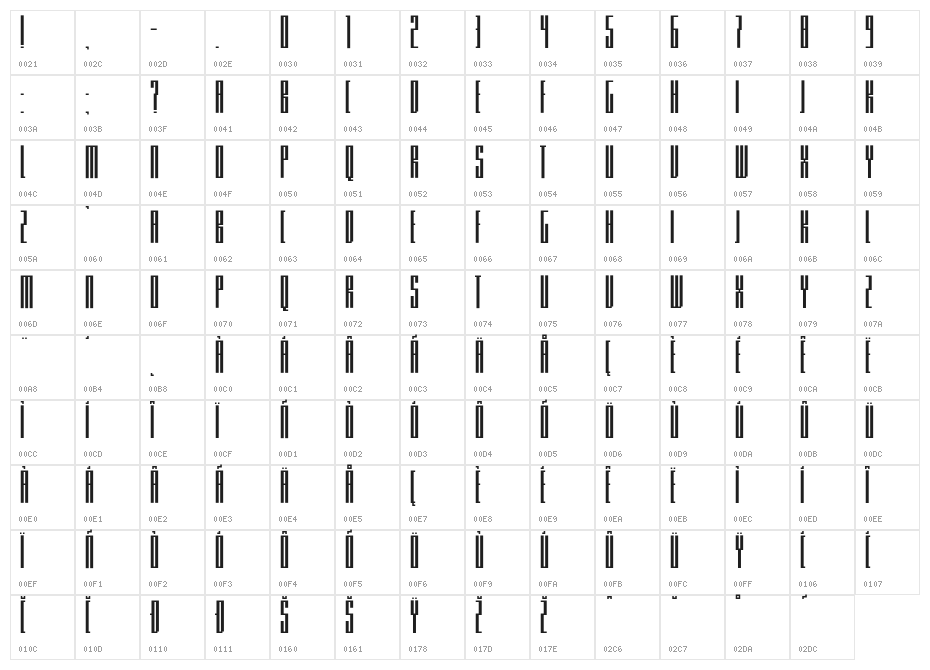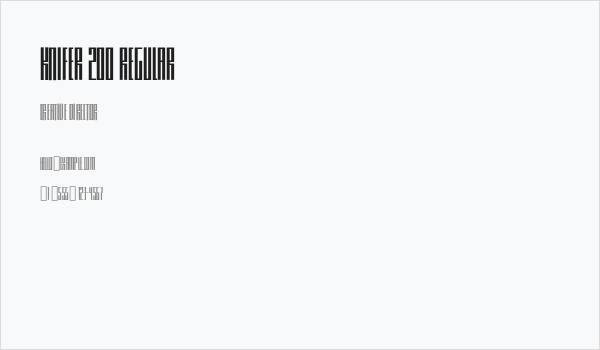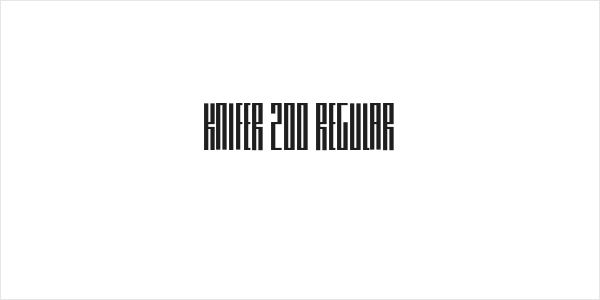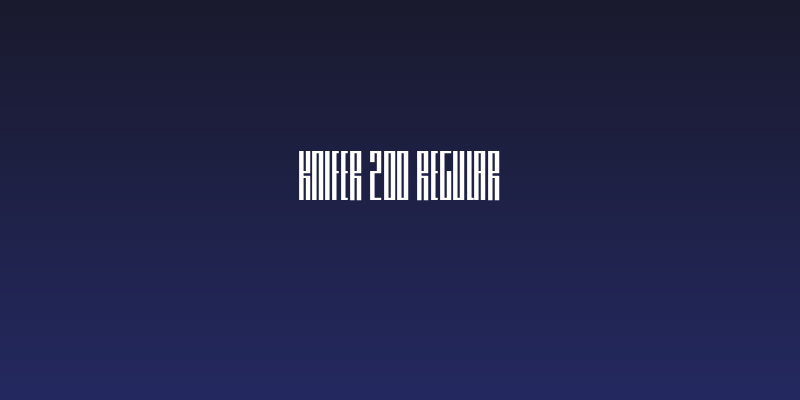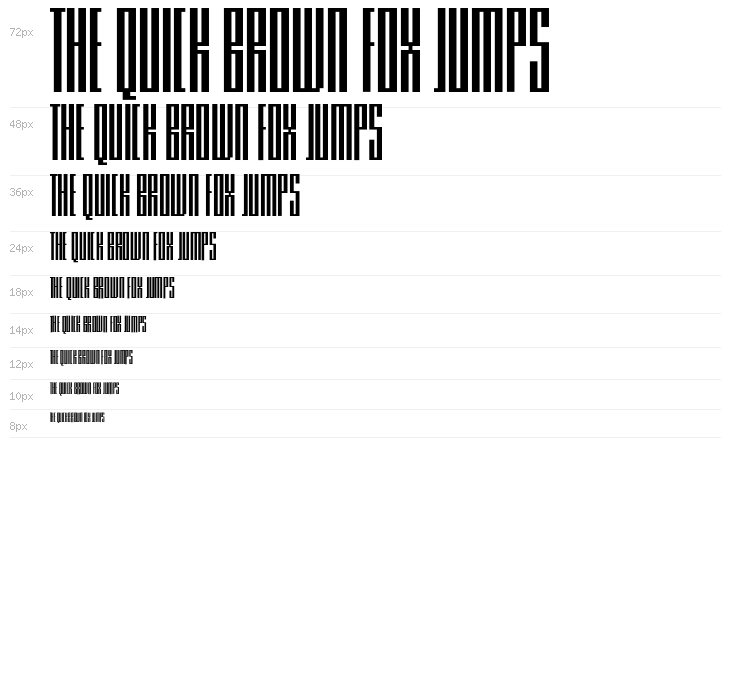
Knifer 200 Regular Font
Knifer 200 Regular Description
This font features a striking, elongated design with a distinctly modern and edgy appearance. The characters are tall and narrow, creating a condensed look that emphasizes verticality. Each letter is crafted with sharp, clean lines, giving the font a sleek and futuristic feel. The uniformity in stroke width across all characters contributes to a cohesive and structured aesthetic. The font's geometric nature and high legibility make it suitable for impactful headlines and titles. Its unique style is both bold and minimalistic, making it a versatile choice for contemporary design projects.
| Proposed Projects | Ideal for use in modern branding, posters, and editorial design where a bold statement is needed. |